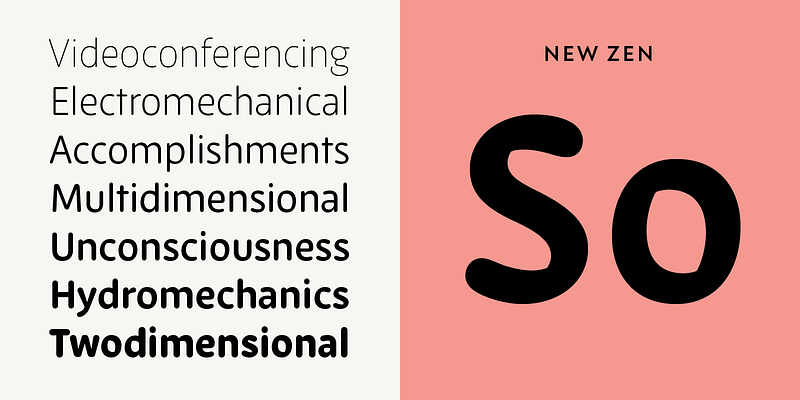
New Zen Font Free Download is a minimalist, modern sans-serif typeface inspired by Zen philosophy—clean, balanced, and quietly powerful. With its simple geometric forms and subtle elegance, this font is perfect for branding, wellness or meditation apps, editorial layouts, lifestyle blogs, and packaging that requires a calm and contemporary aesthetic.
Designed for clarity and versatility, New Zen works beautifully in both headlines and body text, and it supports multiple languages including Latin-based scripts. It integrates effortlessly with design tools like Adobe Illustrator, Figma, Photoshop, and Canva, making it easy to apply across digital and print platforms.